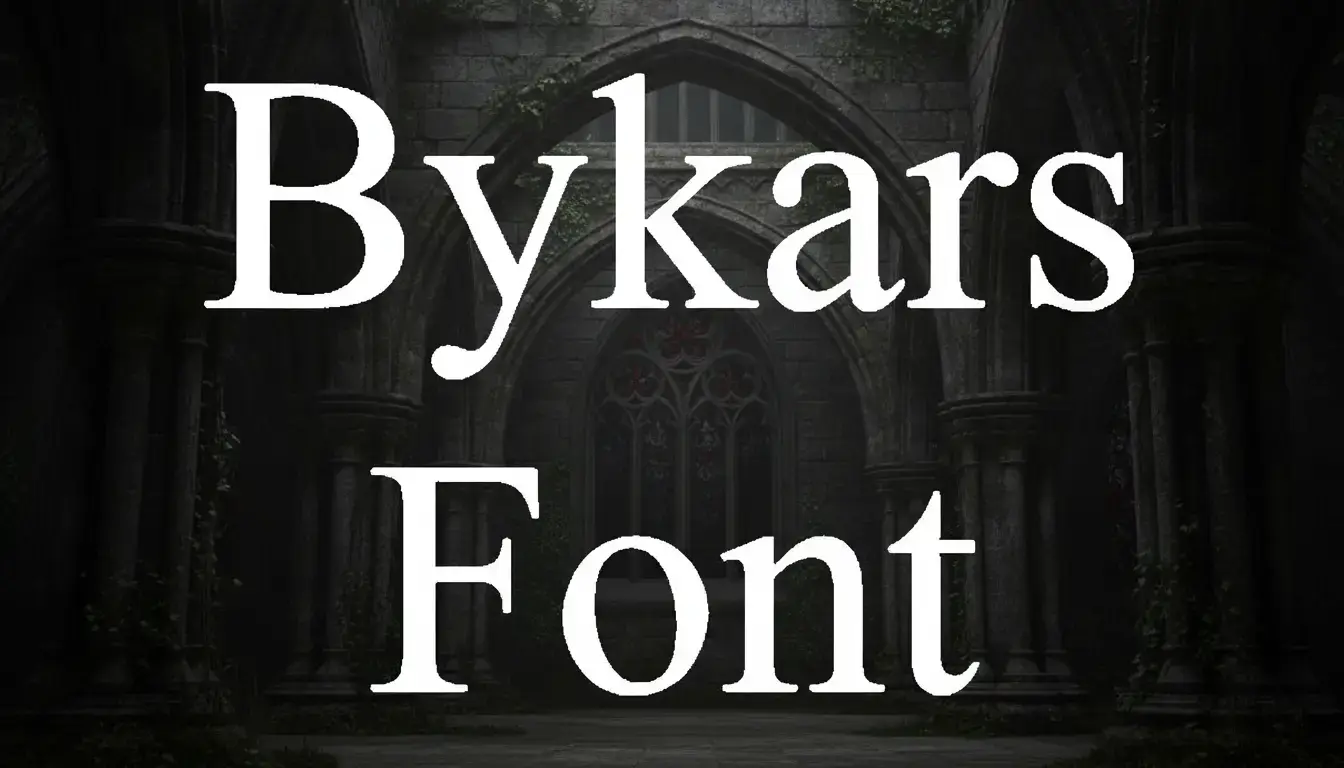
Bykars Font
Bykars
Bykars is a fancy font. Bold and full of character, it's built to stand out rather than blend in. You can download it for free and test it with your own words in the preview above.
With complete upper and lowercase letters and all ten digits, Bykars is ready for real wording, not just a single headline. Everyday marks like &, !, ? and @ are there too. There are no accented letters like é or ñ, so it's best kept to English text.
Bykars is a natural fit for posters, logos and eye-catching headlines. Use it for one standout word or headline and let simpler fonts handle the rest.